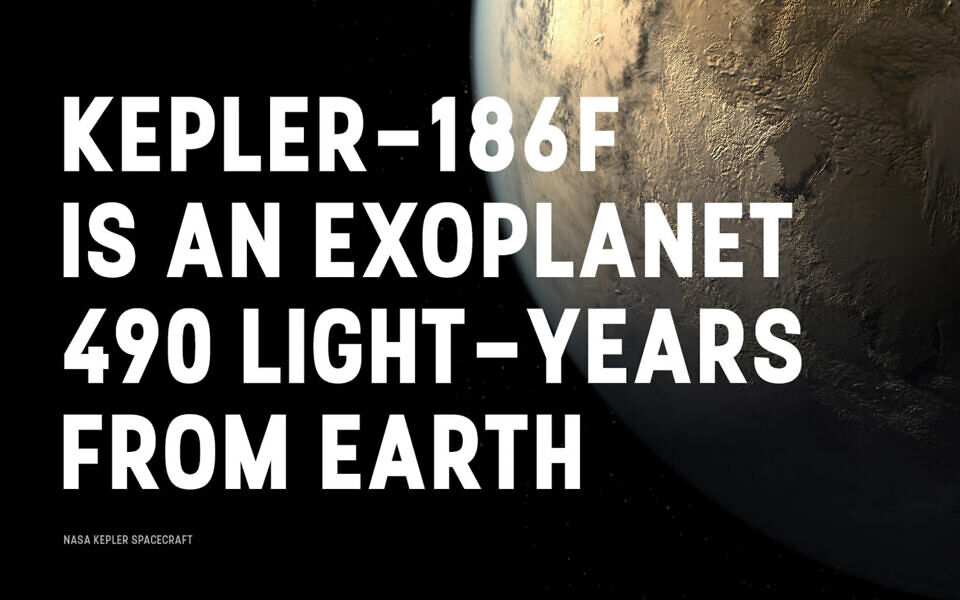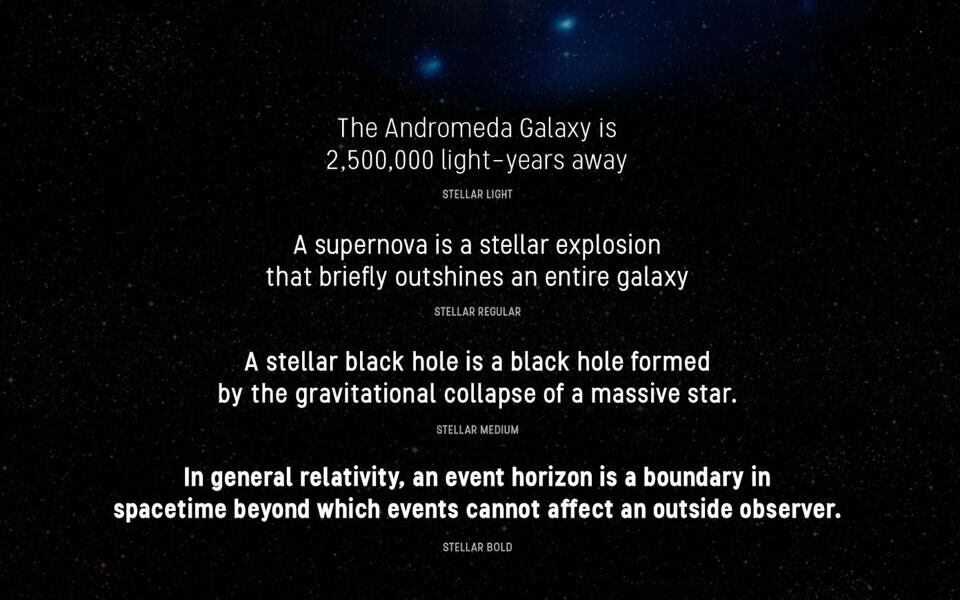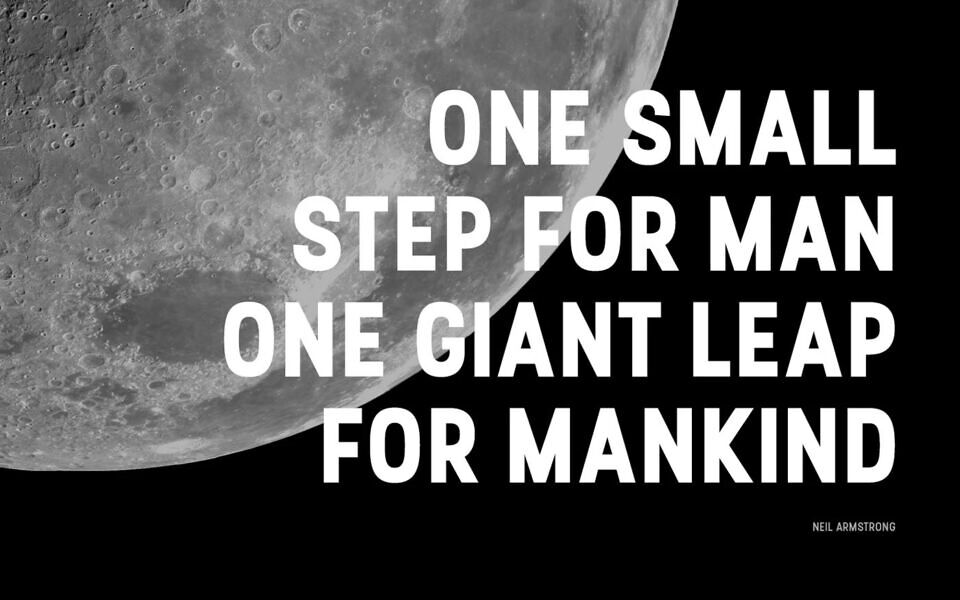
Stellar is a condensed sans serif font designed for clarity, impact, and efficient use of space. With its taller x-height, it achieves exceptional readability in tight layouts while bringing a subtle edge that gives your designs a touch of futuristic personality.
Whether you’re designing for editorial spreads, web interfaces, brand identities, or poster layouts, Stellar provides the structure you need without sacrificing style. Inspired by the tension between the galactic and the atomic, Stellar balances minimalism with a refined visual punch. It’s sleek, focused, and crafted for projects that need to feel modern, intelligent, and a little otherworldly.